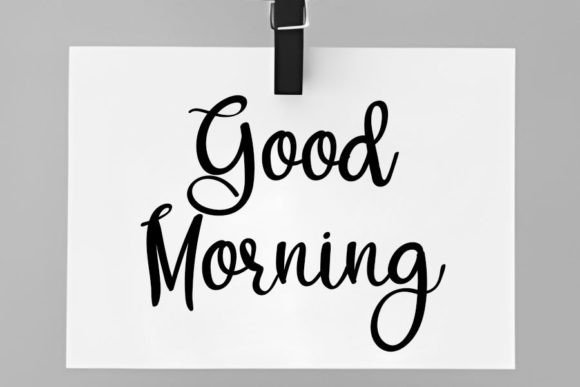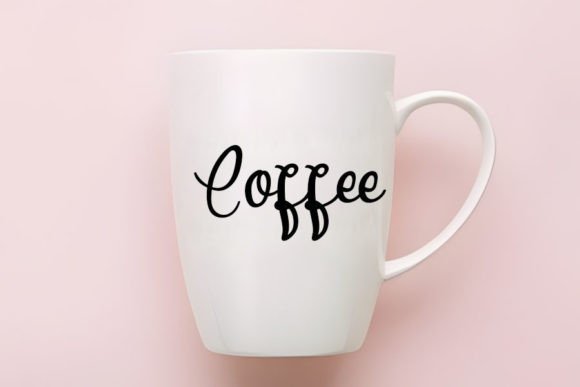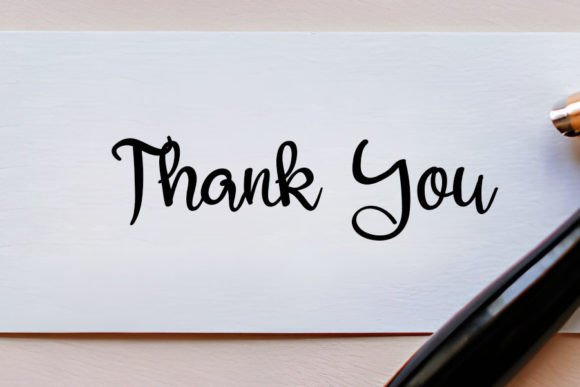
Introduction to Greenhills Font
Remember that moment when a single design element brings your entire project to life? For designers, finding the perfect font can be just that spark. It’s the difference between a good design and a great one. And that’s exactly what the Greenhills Font does – it elevates your creative project to the next level.
With its natural and unique style, the Greenhills Font is an invaluable design resource for any project. Whether you’re working on a free download or a high-quality commercial design, this font is sure to bring a touch of personality to your work. From its transparent background to its expressive letterforms, every detail of the Greenhills Font is designed to inspire creativity and imagination.
Key Features of Greenhills Font
- High-quality design resource suitable for various creative projects
- Unique, modern design with a clean and elegant feel, ideal for use in logos, branding, and typography projects
Honest Review: Greenhills Font
As a designer, I’m always on the lookout for high-quality design resources that can elevate my creative projects. The Greenhills Font caught my attention with its unique style and versatility.
- ✨ High-quality font with crisp details and smooth lines.
- ✨ Suitable for a wide range of creative projects, from branding to editorial design.
- ⚠️ Limited font sizes and styles may make it less suitable for complex or large-scale projects.
Overall, the Greenhills Font is a solid addition to any designer’s toolkit. While it may have some limitations, its unique style and high quality make it a valuable resource for creative projects. If you’re looking for a free, high-quality font to add some flair to your designs, the Greenhills Font is definitely worth checking out.
The Greenhills Font is a versatile and high-quality design resource perfect for any creative project. With its transparent background, this font is ideal for designers who want to add a touch of elegance and sophistication to their work.